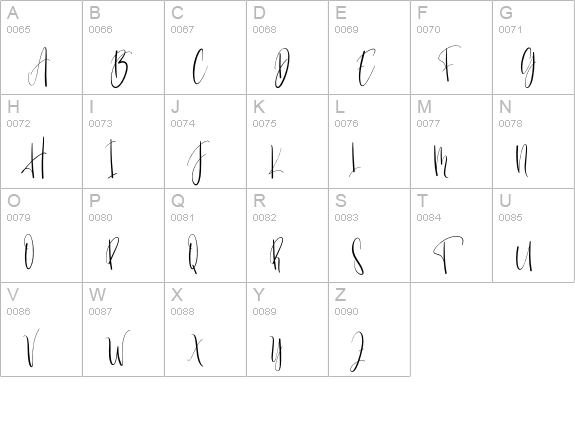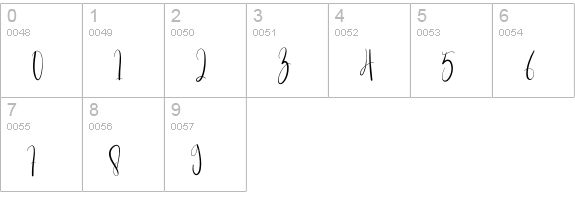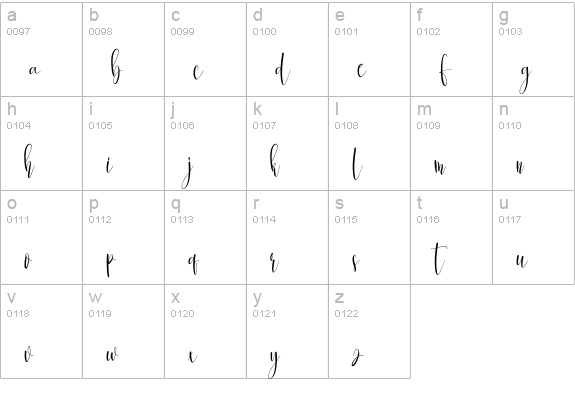
Gracelove Font Details
Gracelove is a free for personal use font in the Script > Handwritten category, designed by scratchones. It has been downloaded 4 times and is available for Windows, Mac and Linux.
Gracelove font is a beautifully designed typeface that exudes elegance and sophistication. With its graceful curves and delicate lines, this font is perfect for adding a touch of refinement to any project. Whether you're designing invitations, logos, or branding materials, Gracelove font will elevate your work to new heights.